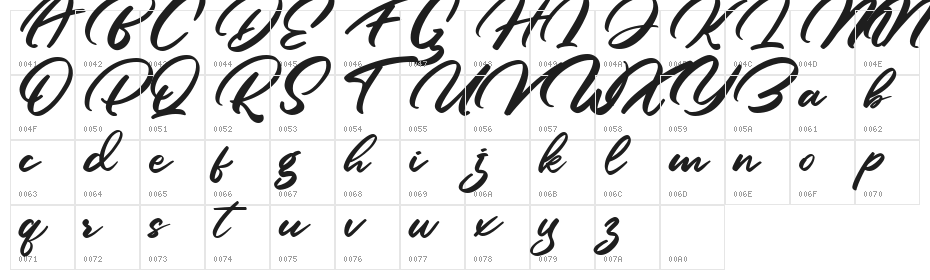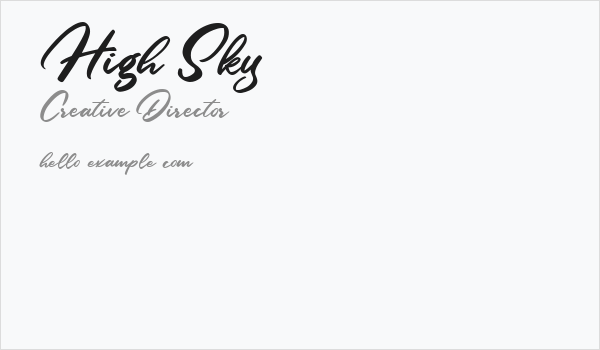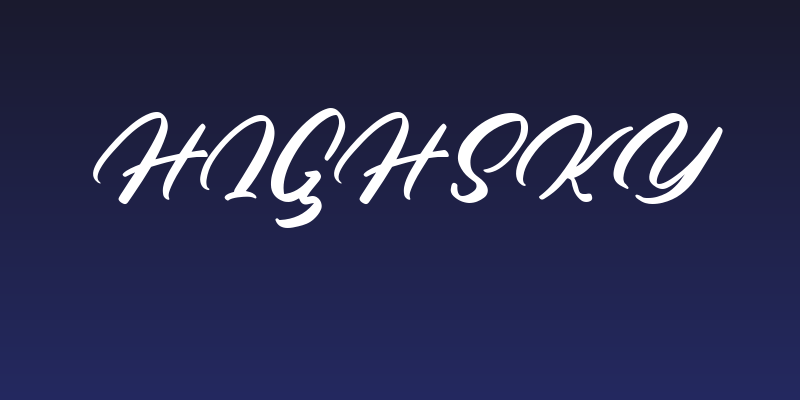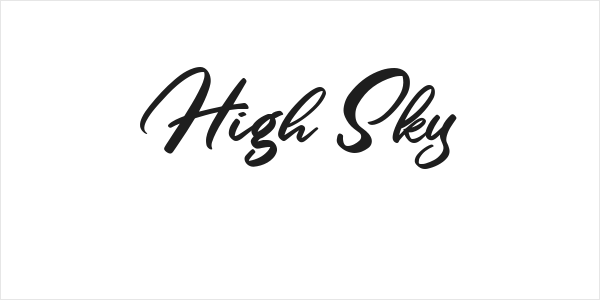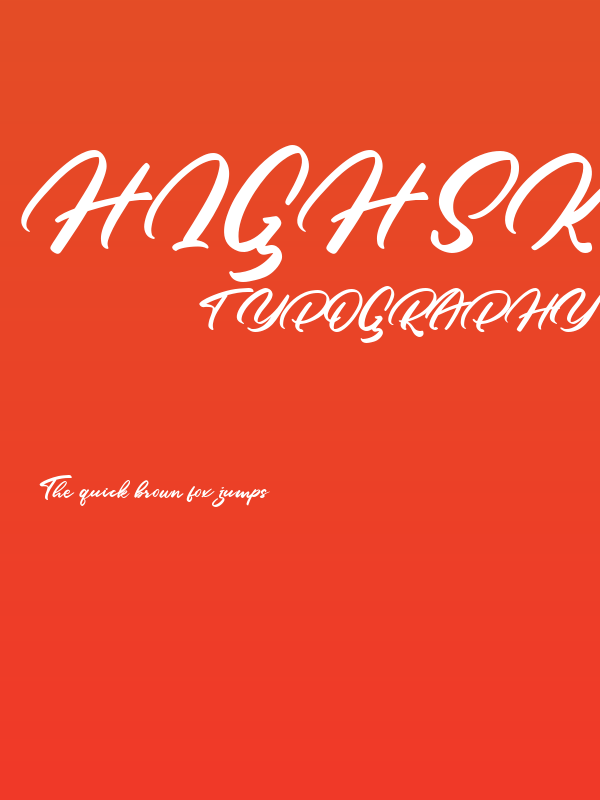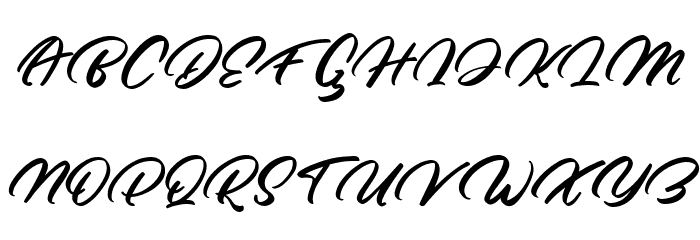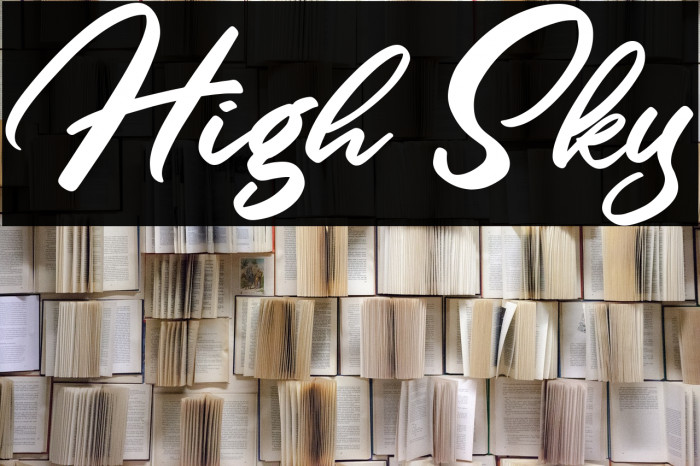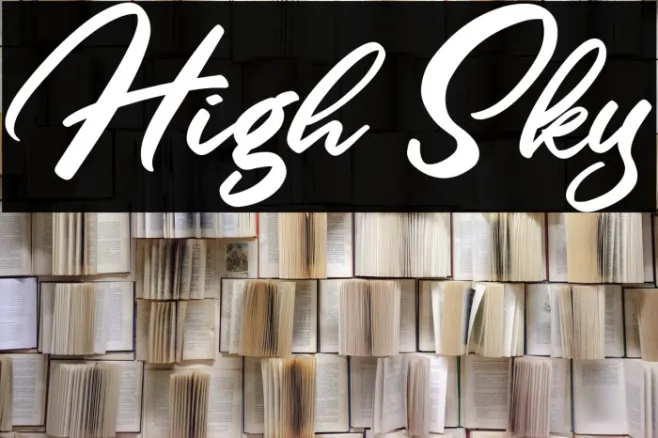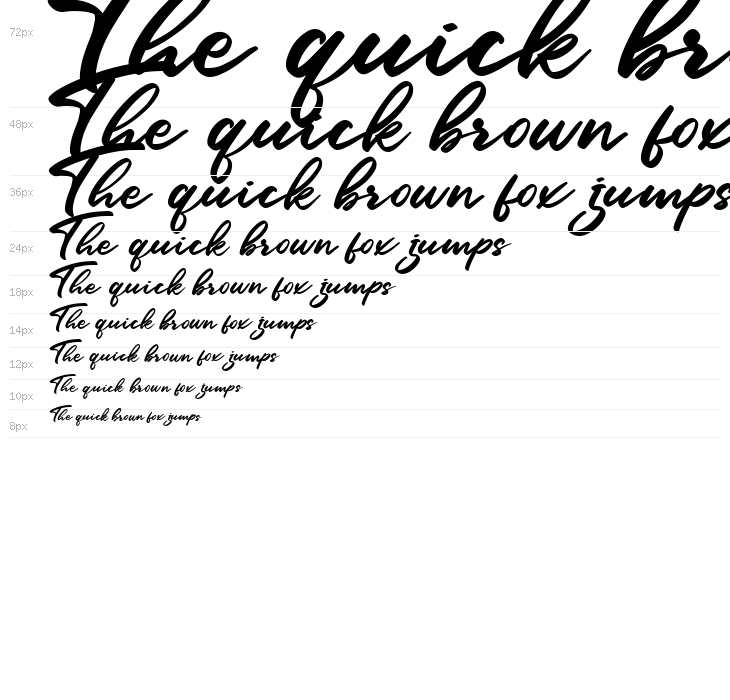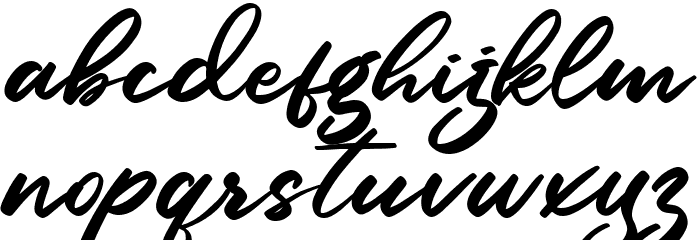
High Sky Font
High Sky Description
This font features a flowing, cursive style with a modern twist. The characters are elegantly connected, creating a seamless and fluid appearance. The uppercase letters are slightly more ornate, with sweeping curves and loops that add a touch of sophistication. The lowercase letters maintain a consistent flow, enhancing readability while preserving the artistic flair. The bold strokes give the font a strong presence, making it suitable for impactful designs. The overall aesthetic is both stylish and versatile, ideal for projects that require a touch of elegance and modernity.
HIGH-SKY UPPERCASE
HIGH-SKY LOWERCASE
HIGH-SKY OTHER CHARS
| Proposed Projects | Ideal for wedding invitations, branding, logos, and elegant packaging designs. |